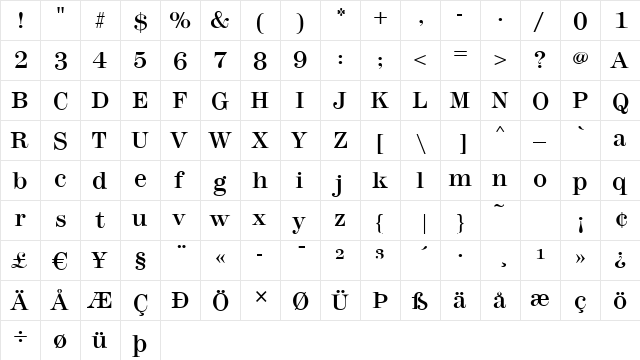
Montpellier Regular
Design Context for Montpellier Typeface
Montpellier takes a measured approach to typography — its balanced proportions and neutral character make it a reliable workhorse for both digital and print work.